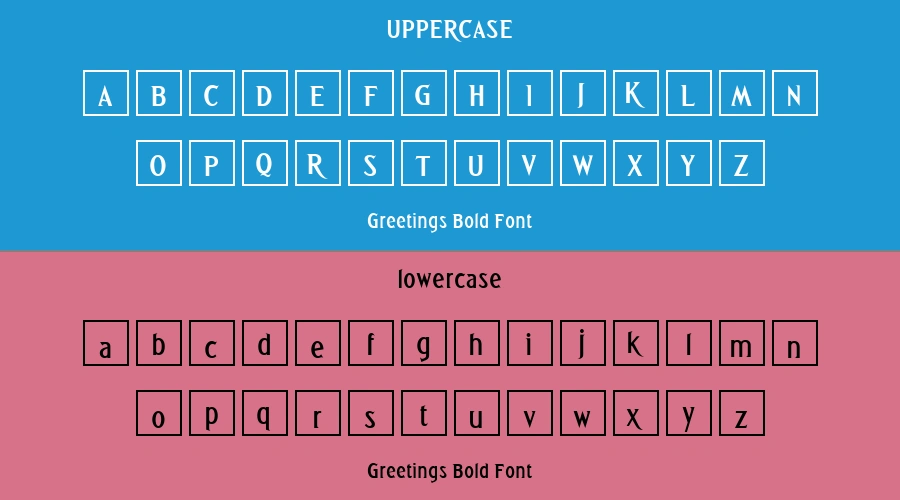
About Greetings Bold Font
Greetings Bold Font stands out for its distinctive combination of straight stems and clarity. Ideal for marketing materials, it provides the expressiveness and consumer connection that professional projects demand. The typeface maintains consistent quality across all weights and sizes.
Key features include refined precise alignment and practical case-sensitive forms, enhancing typographic expression. In sidebars applications, Greetings Bold Font demonstrates exceptional OCR compatibility. The crossbar height and historical reference contribute to its distinctive character and professional appeal.